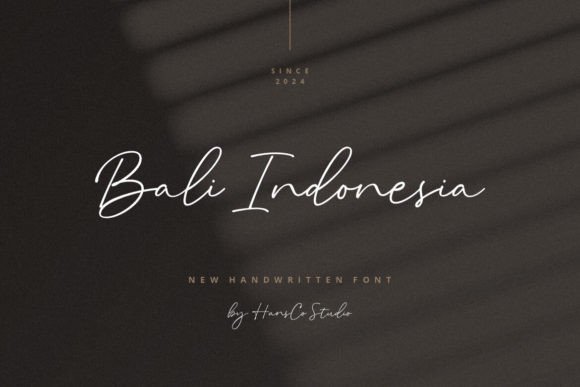
Have you ever been browsing through a beautiful travel blog and suddenly you’re inspired to create your own artistic content? For many of us, that spark of creativity is what drives us to keep pushing the boundaries of our imagination. And sometimes, all it takes is the right tool to bring our ideas to life. In this case, we’re talking about the perfect font – Bali Indonesia Font – that will elevate your designs and make them truly stand out.
This clean and modern handwriting font is more than just a pretty face; it’s a versatile tool that can be used for a wide range of creative projects, from Instagram posts to DIY calligraphy scripts. Whether you’re a seasoned designer or a DIY enthusiast, the Bali Indonesia Font is an invaluable asset that will help you turn your ideas into stunning works of art.
Bali Indonesia Font Key Features
- Unique Characteristics: The Bali Indonesia Font features a unique blend of traditional Balinese and modern elements, making it perfect for designing materials that require a touch of Indonesian culture.
- Font Styles: The Bali Indonesia Font comes in several font styles, including regular, bold, italic, and bold italic, providing users with a range of options to choose from.
Bali Indonesia Font Review
I recently had the chance to work with the Bali Indonesia Font, and I must say it’s an interesting mix of styles and influences. Here’s my honest take on this font:
- Unique blend of Balinese and modern design elements – it’s a refreshing change from the usual sans-serif fonts.
- Beautifully crafted details, like the intricate flourishes and ornaments, add a touch of elegance to any design.
- It’s great for creating a distinctive brand identity, especially for businesses or individuals looking to stand out in the market.
- Limited character set – it’s not ideal for projects requiring a wide range of languages or special characters.
- Some characters may appear a bit cluttered or hard to read at smaller font sizes.
- Not suitable for body text or large blocks of text, as it can be overwhelming.
The Bali Indonesia Font is perfect for designers and creatives looking to add a touch of exotic flair to their projects. While it has its limitations, its unique style and beautiful details make it a great choice for specific design applications. I’d definitely consider using it for branding, logos, or other design elements where a distinctive look is key.
Tips for Getting the Most Out of Bali Indonesia Font
For the best results, use the Bali Indonesia font in conjunction with other Southeast Asian-inspired graphics and design elements.
Common Use Cases for Bali Indonesia Font
The Bali Indonesia font is commonly used in travel and tourism branding, as well as in designs that evoke a sense of tropical paradise and relaxation.